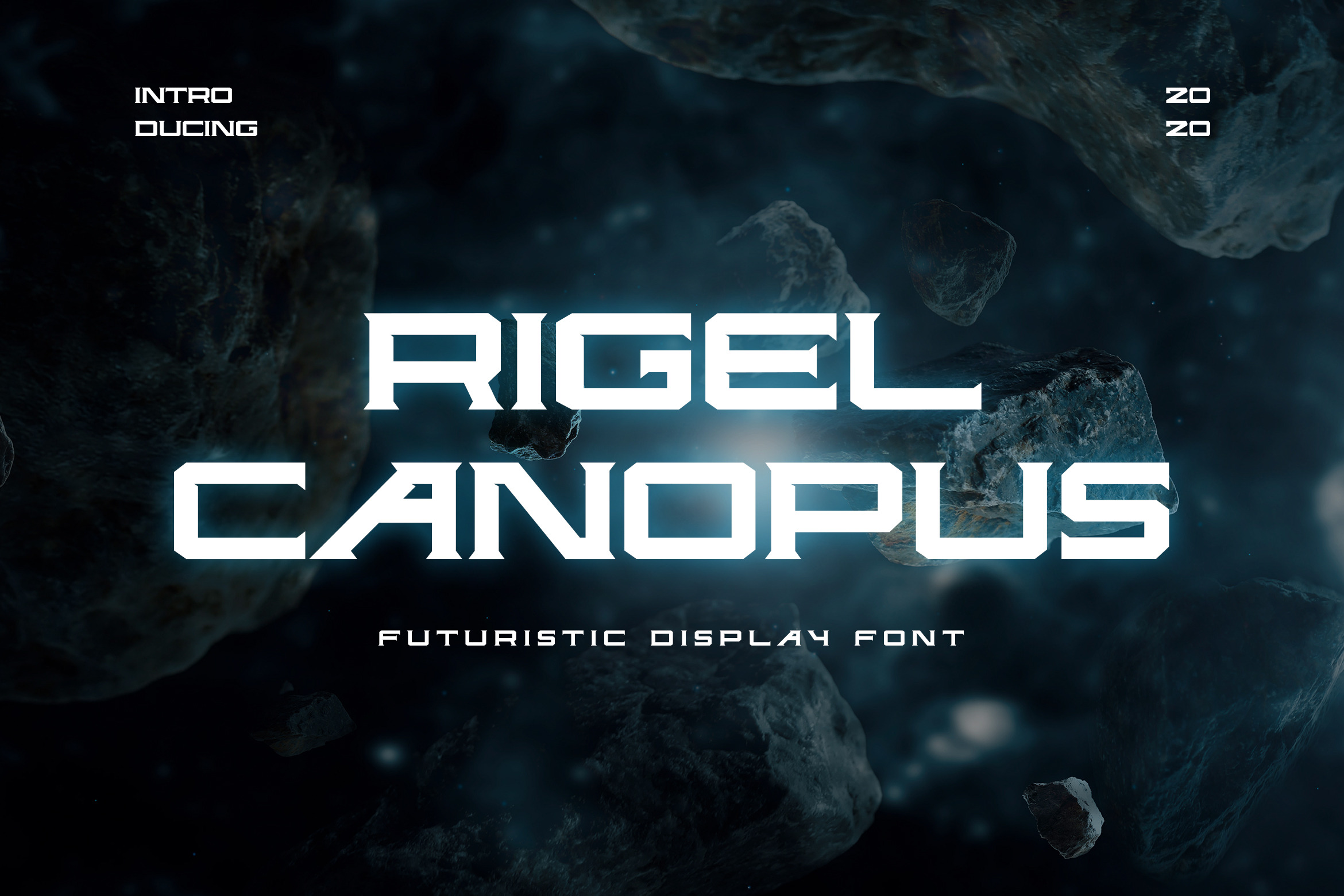
Rigel Canopus Futuristic Font
Introducing our new product the name is Rigel Canopus Futuristic Font. Modern Serif font that feels beautiful classy, elegant, and modern. This font is ideally suited for a wide variety of projects, such as signature, stationery, logo, wedding, typography quotes, magazine or book covers, website headers, clothing, branding, packaging design, and more. Also, fashion-related branding or editorial design displays both masculine and feminine qualities.